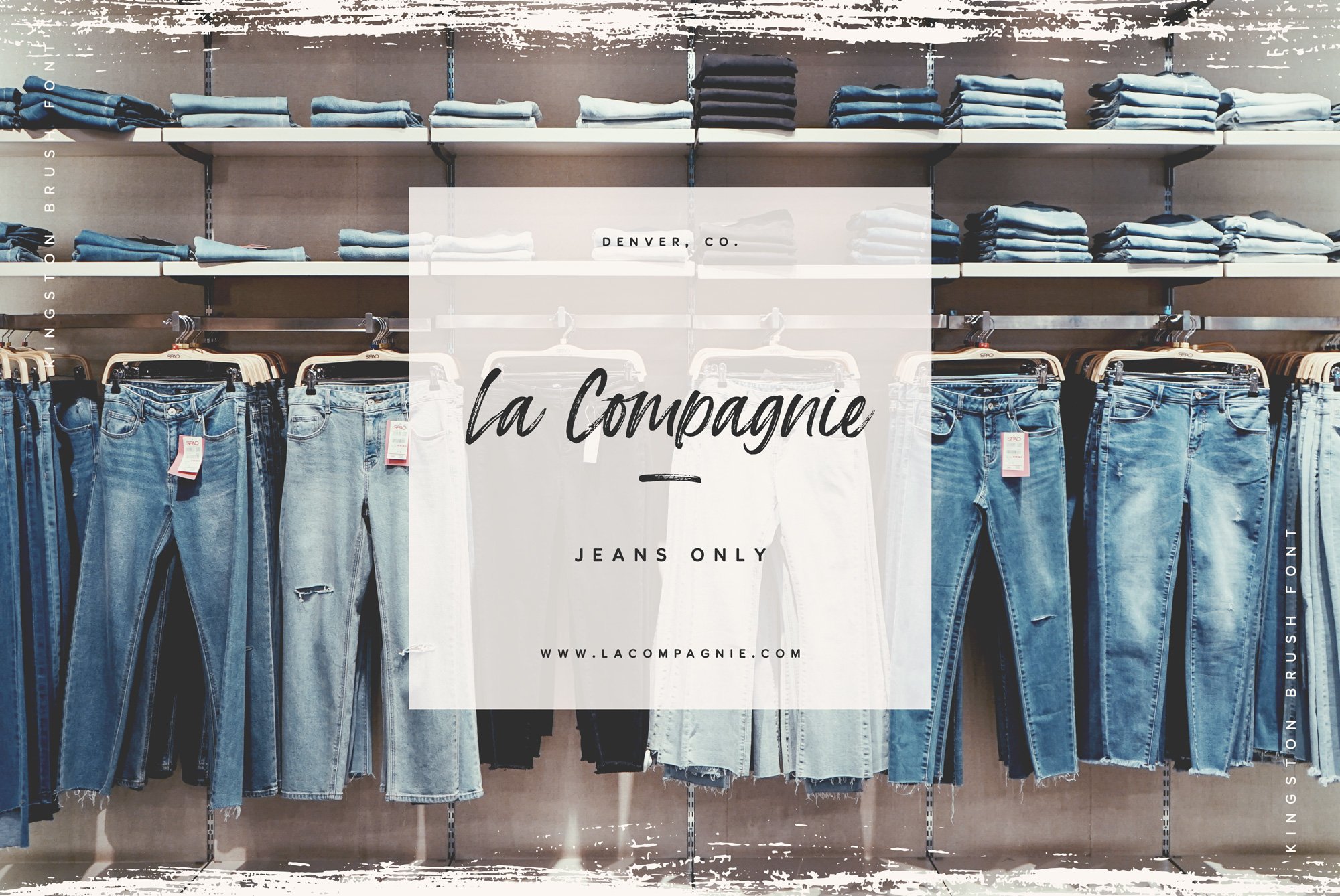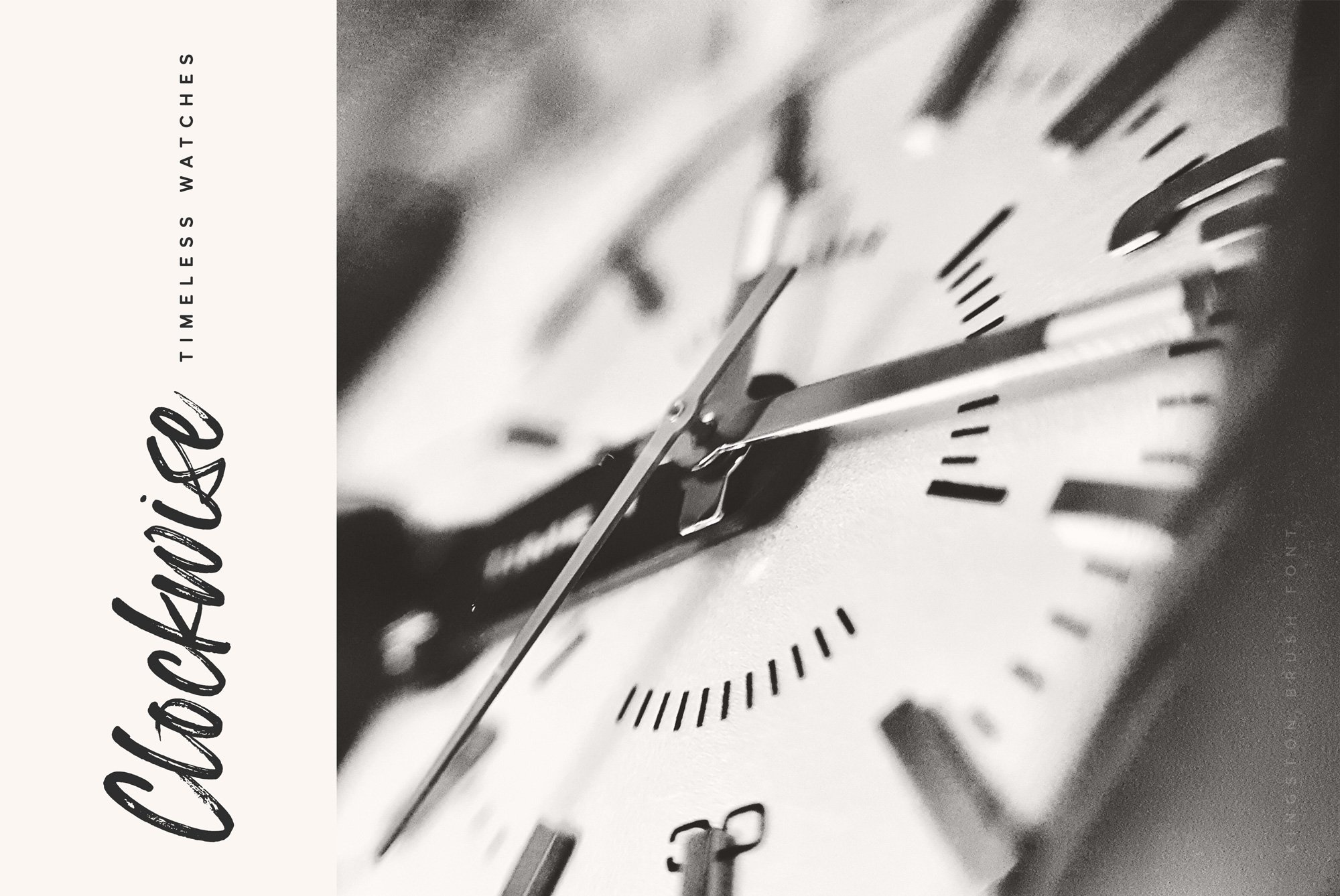
Kingston Brush Font . Download kingston script font · free for personal use · kingston script is a sophisticated and stylish signature typeface. Introducing kingston an handwritten font with a high detailed dry brush texture. This font reads as strong, confident, and dynamic and can add tons of urban. Kingston is a modern and brushed display font, crafted to give your headlines and logotype projects a stylish touch. Kingston has been designed to fit a wide range. Introducing **kingston** an handwritten font with a high detailed dry brush texture. It works for all types of projects, from urban style to classic ones, with complete alternative kingston suite also. Kingston suite includes a beautiful selection of 52 handcrafted embellishments to complete your kingston text beautifully. Perfect for urban or classic projects alike, its extensive character selection allows for versatile design solutions. Kingston brush font an handwritten font with a high detailed dry brush texture. Kingston has been designed to fit a wide range. Kingston is an elegant brush font. **kingston** has been designed to fit a wide range of projects from urban style to classic. Kingston is a beautiful brush font.
Kingston is a beautiful brush font. Perfect for urban or classic projects alike, its extensive character selection allows for versatile design solutions. Download kingston script font · free for personal use · kingston script is a sophisticated and stylish signature typeface. Kingston has been designed to fit a wide range. Kingston suite includes a beautiful selection of 52 handcrafted embellishments to complete your kingston text beautifully. Kingston brush font an handwritten font with a high detailed dry brush texture. **kingston** has been designed to fit a wide range of projects from urban style to classic. Kingston has been designed to fit a wide range. Kingston is an elegant brush font. Kingston is a modern and brushed display font, crafted to give your headlines and logotype projects a stylish touch.
Kingston Brush Font Introducing kingston an handwritten font with a high detailed dry brush texture. Kingston suite includes a beautiful selection of 52 handcrafted embellishments to complete your kingston text beautifully. Introducing kingston an handwritten font with a high detailed dry brush texture. Kingston has been designed to fit a wide range. Kingston is a beautiful brush font. Kingston has been designed to fit a wide range. Introducing **kingston** an handwritten font with a high detailed dry brush texture. Kingston is a modern and brushed display font, crafted to give your headlines and logotype projects a stylish touch. Kingston is an elegant brush font. Perfect for urban or classic projects alike, its extensive character selection allows for versatile design solutions. Kingston brush font an handwritten font with a high detailed dry brush texture. **kingston** has been designed to fit a wide range of projects from urban style to classic. Download kingston script font · free for personal use · kingston script is a sophisticated and stylish signature typeface. This font reads as strong, confident, and dynamic and can add tons of urban. It works for all types of projects, from urban style to classic ones, with complete alternative kingston suite also.
Kingston Handbrush Font Kingston Brush Font Kingston suite includes a beautiful selection of 52 handcrafted embellishments to complete your kingston text beautifully. Kingston has been designed to fit a wide range. **kingston** has been designed to fit a wide range of projects from urban style to classic. It works for all types of projects, from urban style to classic ones, with complete alternative kingston suite also.. Kingston Brush Font.
Kingston Script Brush Font + Extras Design Cuts Kingston Brush Font Kingston has been designed to fit a wide range. Kingston is a modern and brushed display font, crafted to give your headlines and logotype projects a stylish touch. This font reads as strong, confident, and dynamic and can add tons of urban. **kingston** has been designed to fit a wide range of projects from urban style to classic. It works. Kingston Brush Font.
Kingston Brush Font + Extras Brush font, Brush script fonts, Blog header Kingston Brush Font This font reads as strong, confident, and dynamic and can add tons of urban. Introducing kingston an handwritten font with a high detailed dry brush texture. Kingston is a beautiful brush font. Kingston suite includes a beautiful selection of 52 handcrafted embellishments to complete your kingston text beautifully. Download kingston script font · free for personal use · kingston script. Kingston Brush Font.
Kingston Brush Font + Extras в 2020 г (с изображениями) Шрифт алфавит Kingston Brush Font Kingston suite includes a beautiful selection of 52 handcrafted embellishments to complete your kingston text beautifully. Kingston is a beautiful brush font. Perfect for urban or classic projects alike, its extensive character selection allows for versatile design solutions. Kingston is an elegant brush font. Kingston brush font an handwritten font with a high detailed dry brush texture. Kingston has been. Kingston Brush Font.
Kingston Script Brush Font + Extras Design Cuts Kingston Brush Font Kingston is an elegant brush font. Introducing kingston an handwritten font with a high detailed dry brush texture. Kingston brush font an handwritten font with a high detailed dry brush texture. This font reads as strong, confident, and dynamic and can add tons of urban. Introducing **kingston** an handwritten font with a high detailed dry brush texture. Perfect for urban. Kingston Brush Font.
Kingston Brush Font + Extras on Inspirationde Kingston Brush Font This font reads as strong, confident, and dynamic and can add tons of urban. It works for all types of projects, from urban style to classic ones, with complete alternative kingston suite also. Kingston brush font an handwritten font with a high detailed dry brush texture. Introducing **kingston** an handwritten font with a high detailed dry brush texture. Perfect for. Kingston Brush Font.
Kingston Script Brush Font + Extras Design Cuts Kingston Brush Font Kingston has been designed to fit a wide range. This font reads as strong, confident, and dynamic and can add tons of urban. It works for all types of projects, from urban style to classic ones, with complete alternative kingston suite also. Kingston brush font an handwritten font with a high. Kingston Brush Font.
Kingston Script Brush Font + Extras Design Cuts Kingston Brush Font Kingston is an elegant brush font. **kingston** has been designed to fit a wide range of projects from urban style to classic. Introducing kingston an handwritten font with a high detailed dry brush texture. It works for all types of projects, from urban style to classic ones, with complete alternative kingston suite also. Kingston suite includes a beautiful selection of. Kingston Brush Font.
Kingston Handwritten Brush Font And Extras (405386) Script Font Bundles Kingston Brush Font Kingston is a beautiful brush font. It works for all types of projects, from urban style to classic ones, with complete alternative kingston suite also. Download kingston script font · free for personal use · kingston script is a sophisticated and stylish signature typeface. Introducing kingston an handwritten font with a high detailed dry brush texture. Kingston brush font an. Kingston Brush Font.